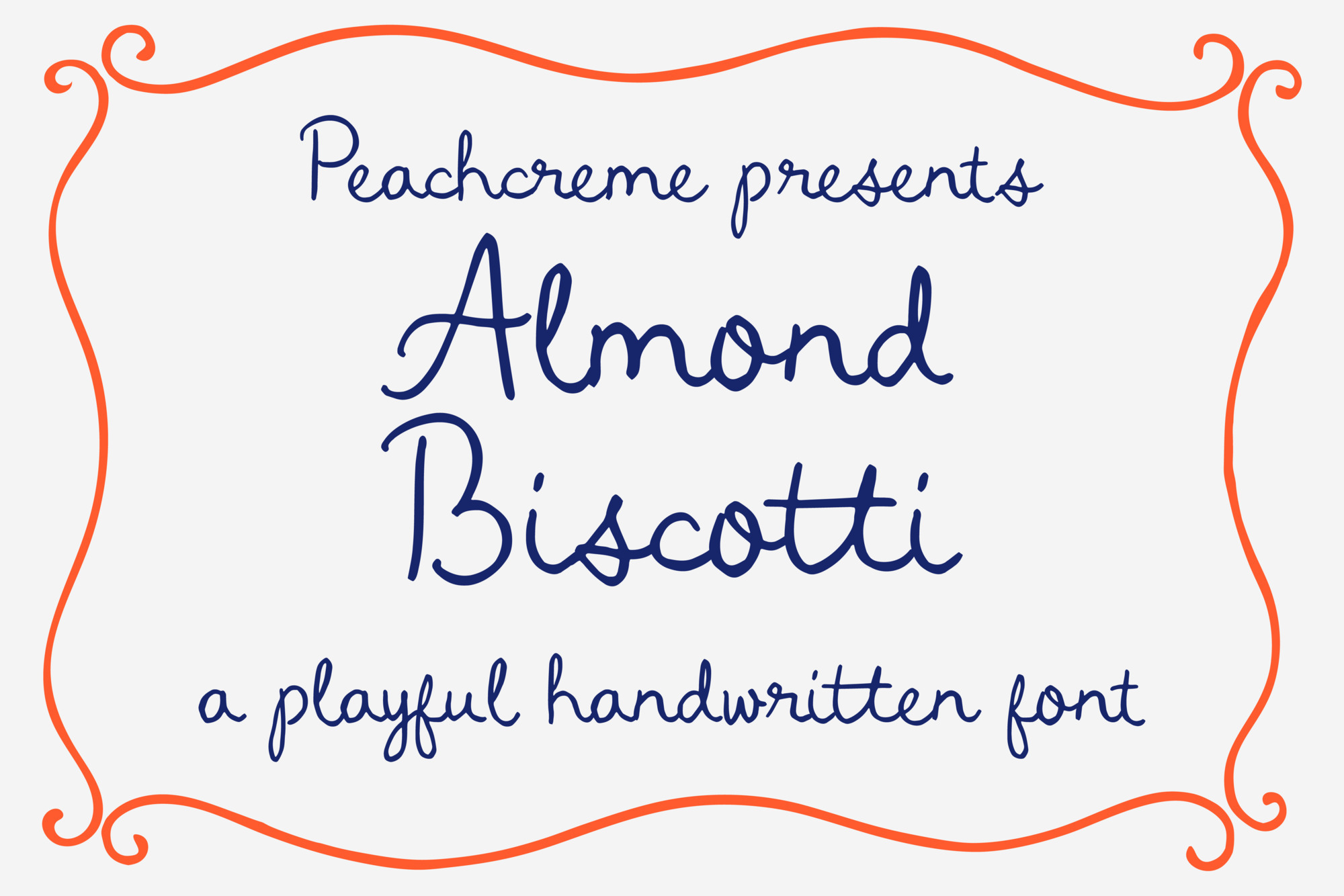
Almond Biscotti - Hand drawn font
Add a touch of whimsy with Almond Biscotti. This hand-drawn font features irregular, charming letter shapes, perfect for invitations, cards, and creative projects.